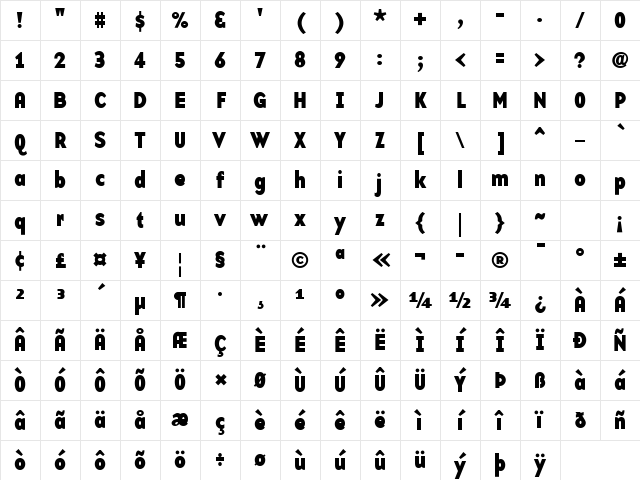
Complete BaseTwelve Medium glyph index. Displaying only characters natively supported by BaseTwelve Medium font.
BaseTwelve is a composed and adaptable typeface that performs quietly and consistently across a wide range of design contexts.
Who designed the BaseTwelve Medium font?
This font was published by C) Emigre Graphics; designed by Zuzana Licko. Check the technical specs section for copyright and designer details.